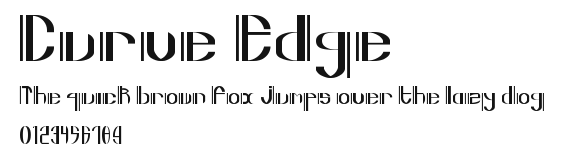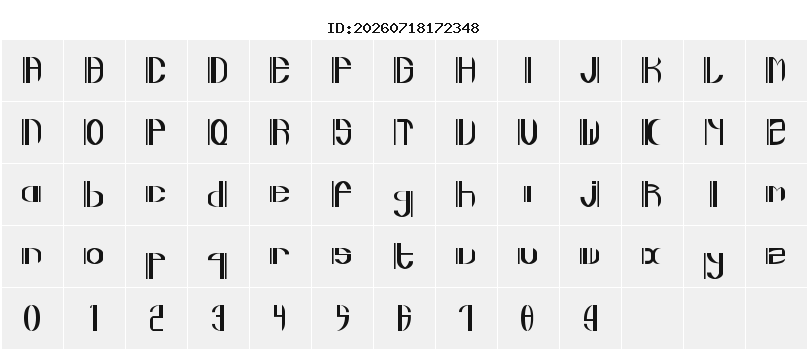
Curve Edge.ttf is a modern, elegant sans-serif font designed for ultimate readability and visual harmony. Perfect for branding, headlines, web design, and print materials.